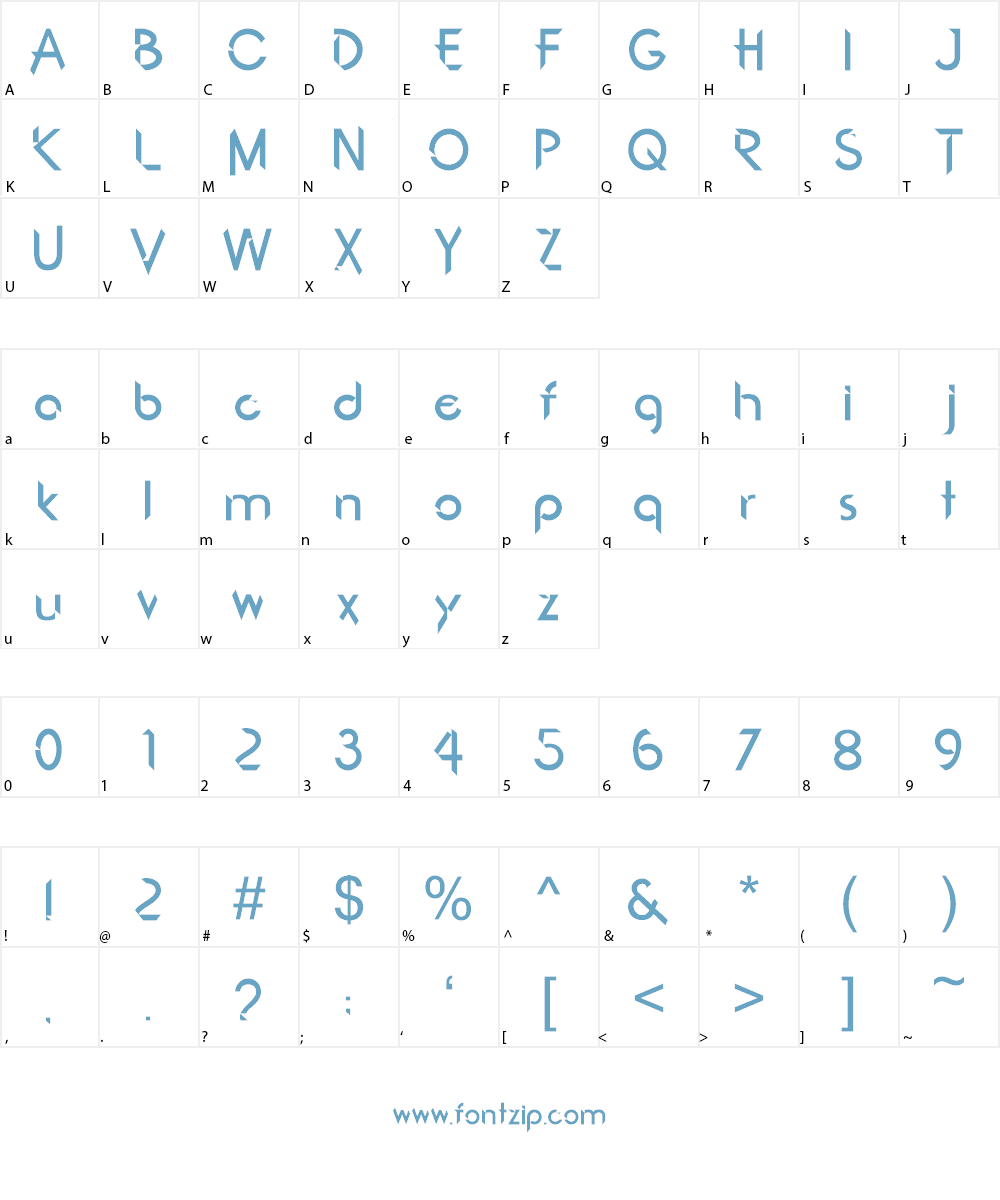
A font for the love of the cyberpunk subgenre of science fiction. Inspired by dystopian media, new and old, for a modern but tarnished and funky look.